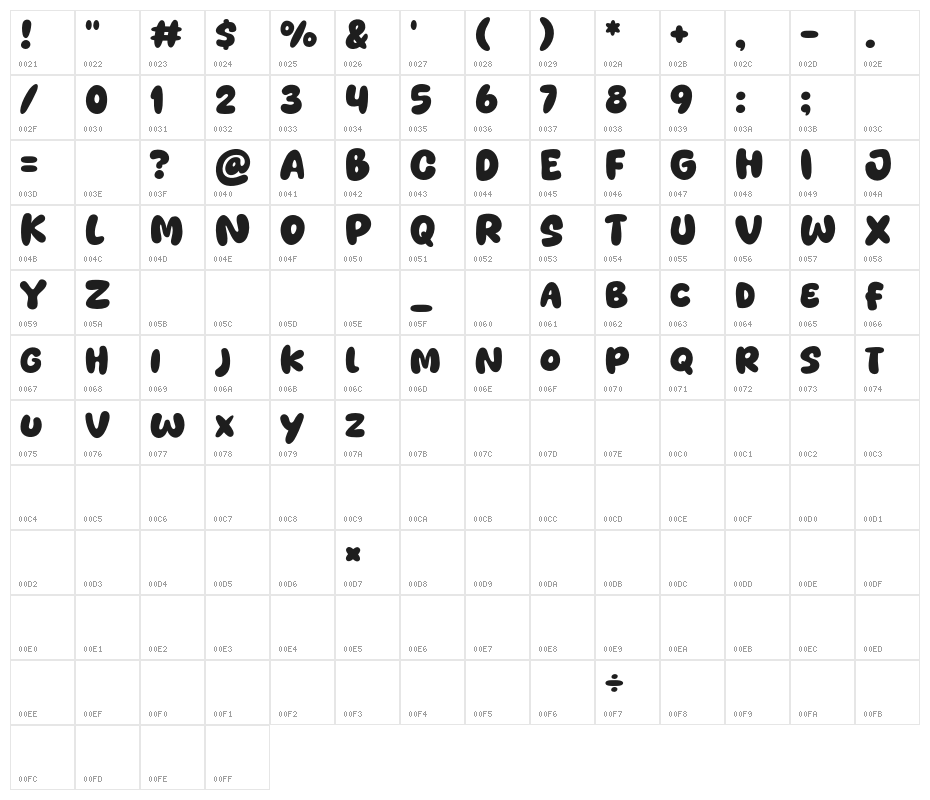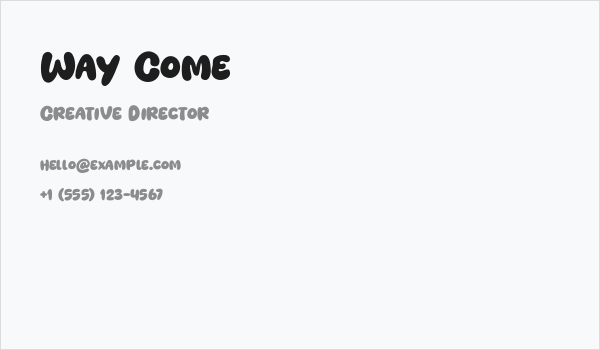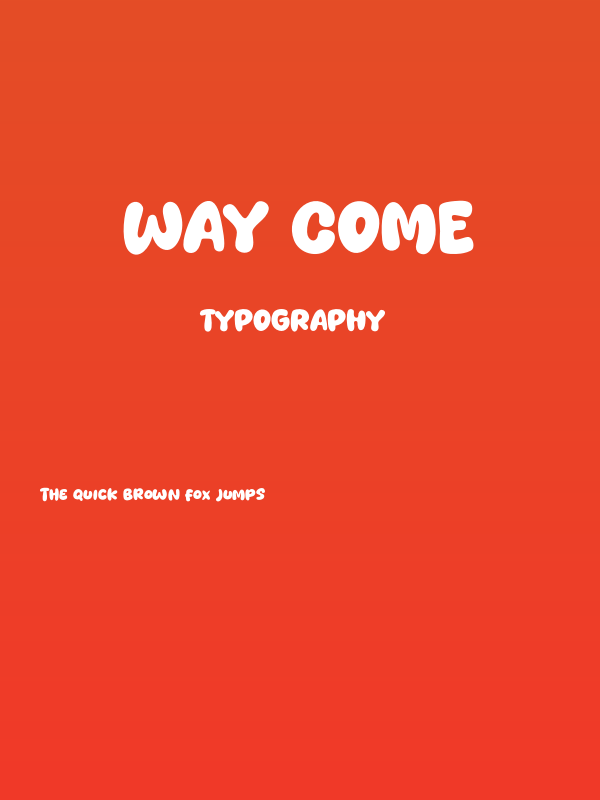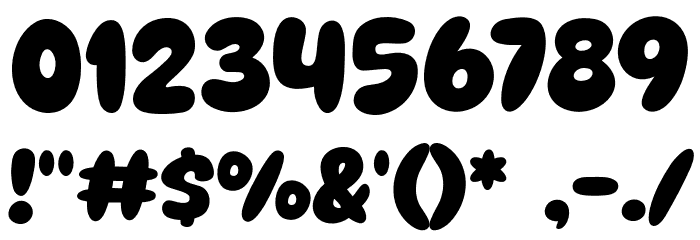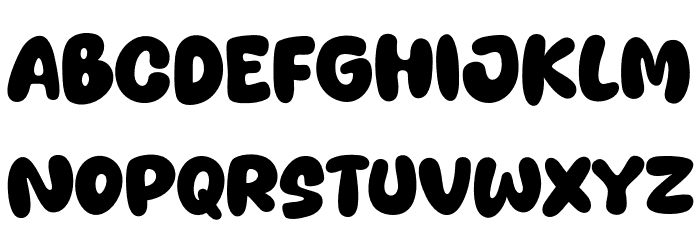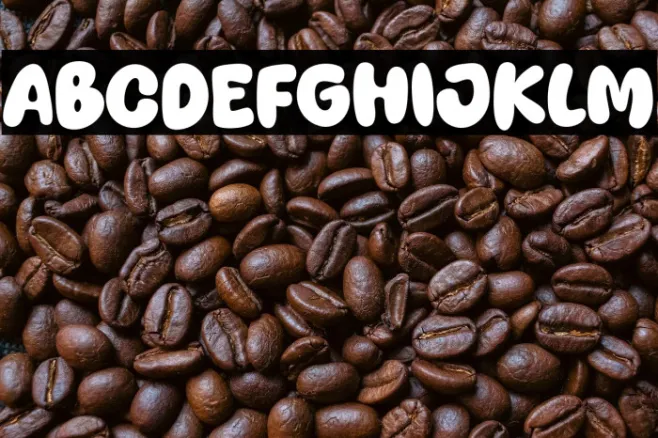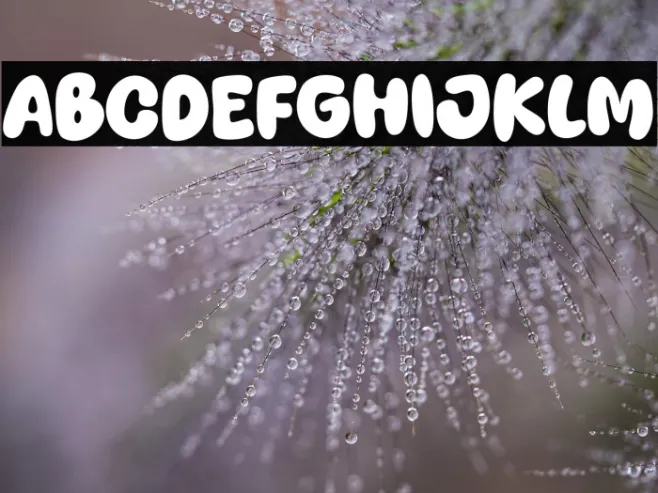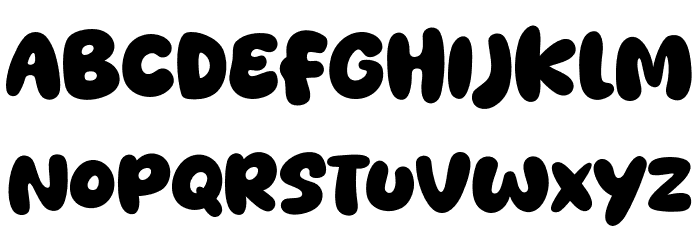
Way Come Font
Way Come Description
This font features a bold, playful style with rounded, bubble-like characters. The letters are thick and have a consistent stroke width, giving them a uniform appearance. The overall look is fun and informal, making it suitable for creative and casual designs. The characters are well-spaced, ensuring readability despite their boldness. The numbers and special characters maintain the same playful aesthetic, contributing to a cohesive design. This font is ideal for projects that require a touch of whimsy and creativity.
| Overall Style | Playful, Fun, Informal |
| Proposed Projects | Ideal for children's books, playful branding, party invitations, and creative posters. |